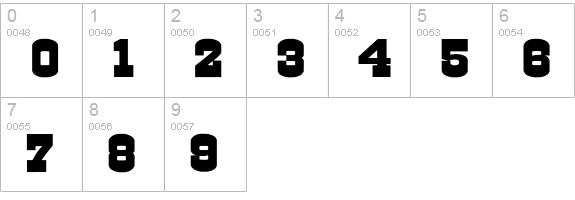
Cowboys Font Details
Introducing Cowboys font, a captivating typeface that embodies the spirit of the Wild West. With its bold and rugged appearance, this font is perfect for adding a touch of adventure and nostalgia to your designs. Cowboys font features intricately designed letterforms that evoke images of dusty plains, iconic cowboy hats, and the sound of spurs jingling in the distance. This font is not only visually striking but also versatile, making it suitable for a wide range of creative projects. Whether you're working on a Western-themed poster, a vintage-inspired logo, or even a fun party invitation, Cowboys font will add a unique and authentic touch to your design. One of the best parts about Cowboys font is that it is completely free to download at FontsMarket.com. This means that you can add this impressive typeface to your collection without any cost, allowing you to explore its various possibilities and unleash your creativity without constraints. With Cowboys font, you can transport your audience to the rugged landscapes of the Old West, capturing their attention and immersing them in a world of adventure. So, saddle up and let Cowboys font be your trusty companion as you embark on your next design journey. Download it for free at FontsMarket.com and let your imagination run wild.